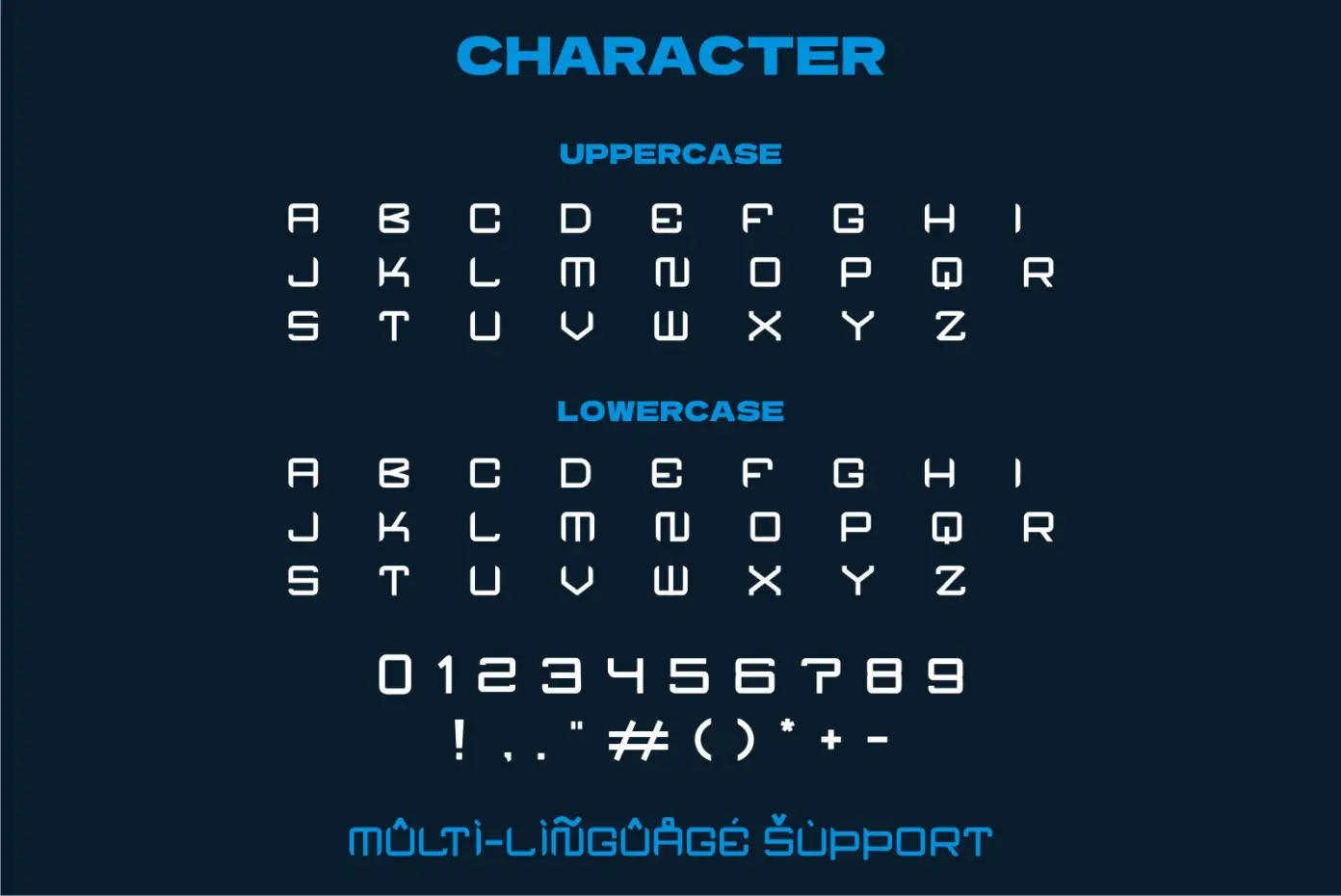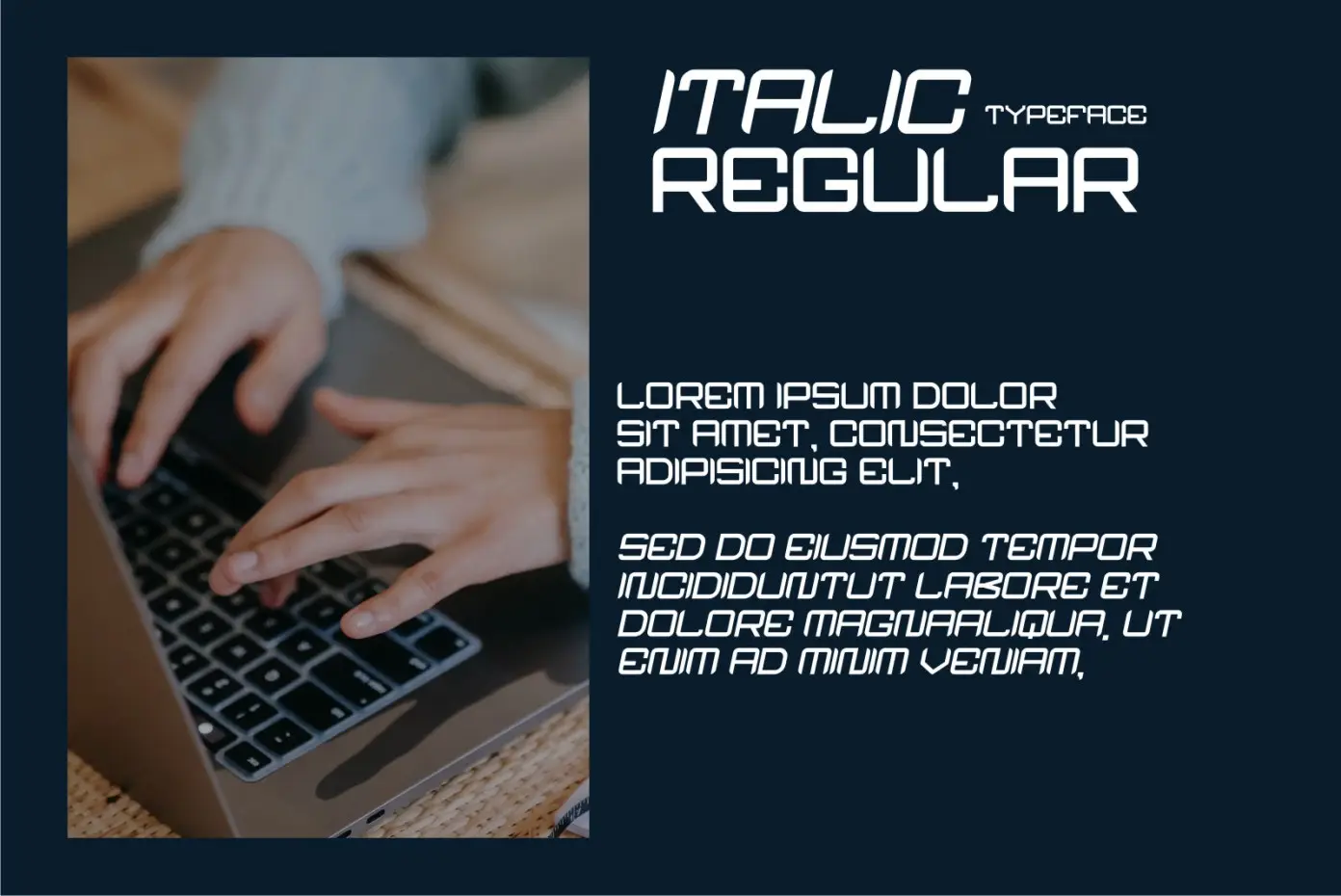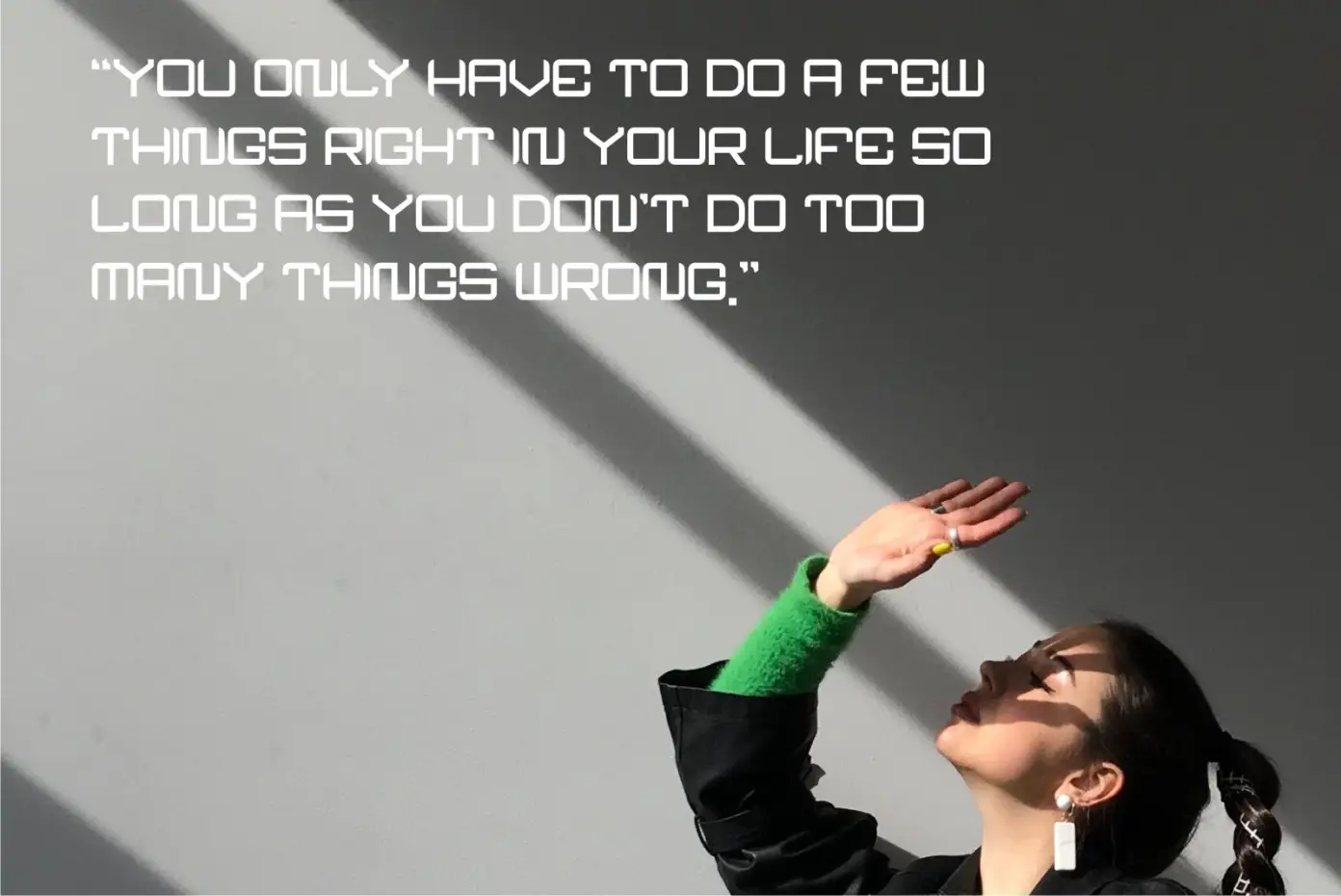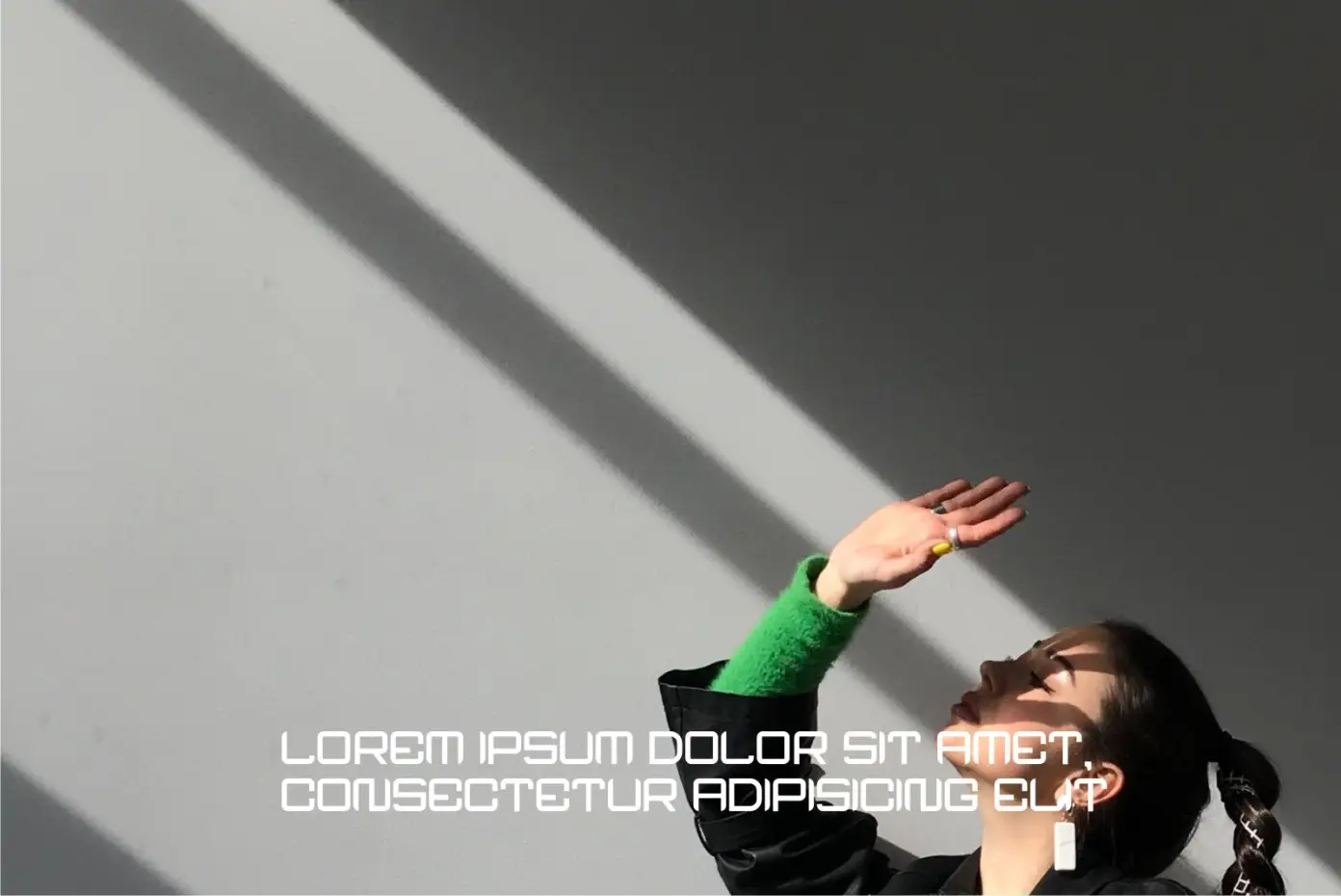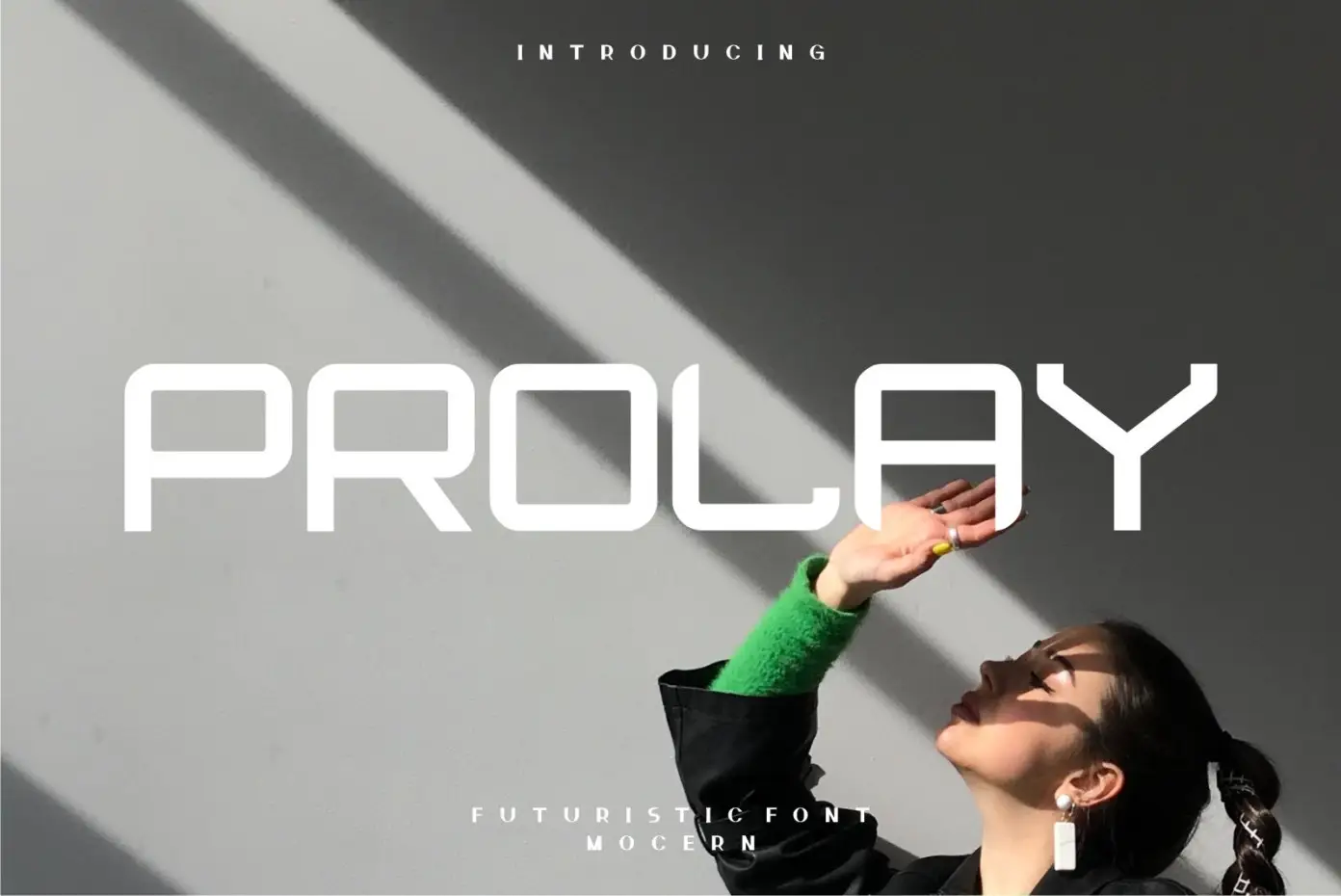
Prolay Font
The Prolay Font is a modern typeface designed for versatility and elegance. With its clean lines and contemporary style, this font is perfect for a variety of applications, including branding, logos, web design, and print materials.
• Multiple weights for flexibility in design
• Supports a wide range of languages
• Stylish and readable letterforms
• Ideal for both digital and print projects
• Use in headings and body text for a cohesive look
• Pair with contrasting fonts for enhanced visual appeal